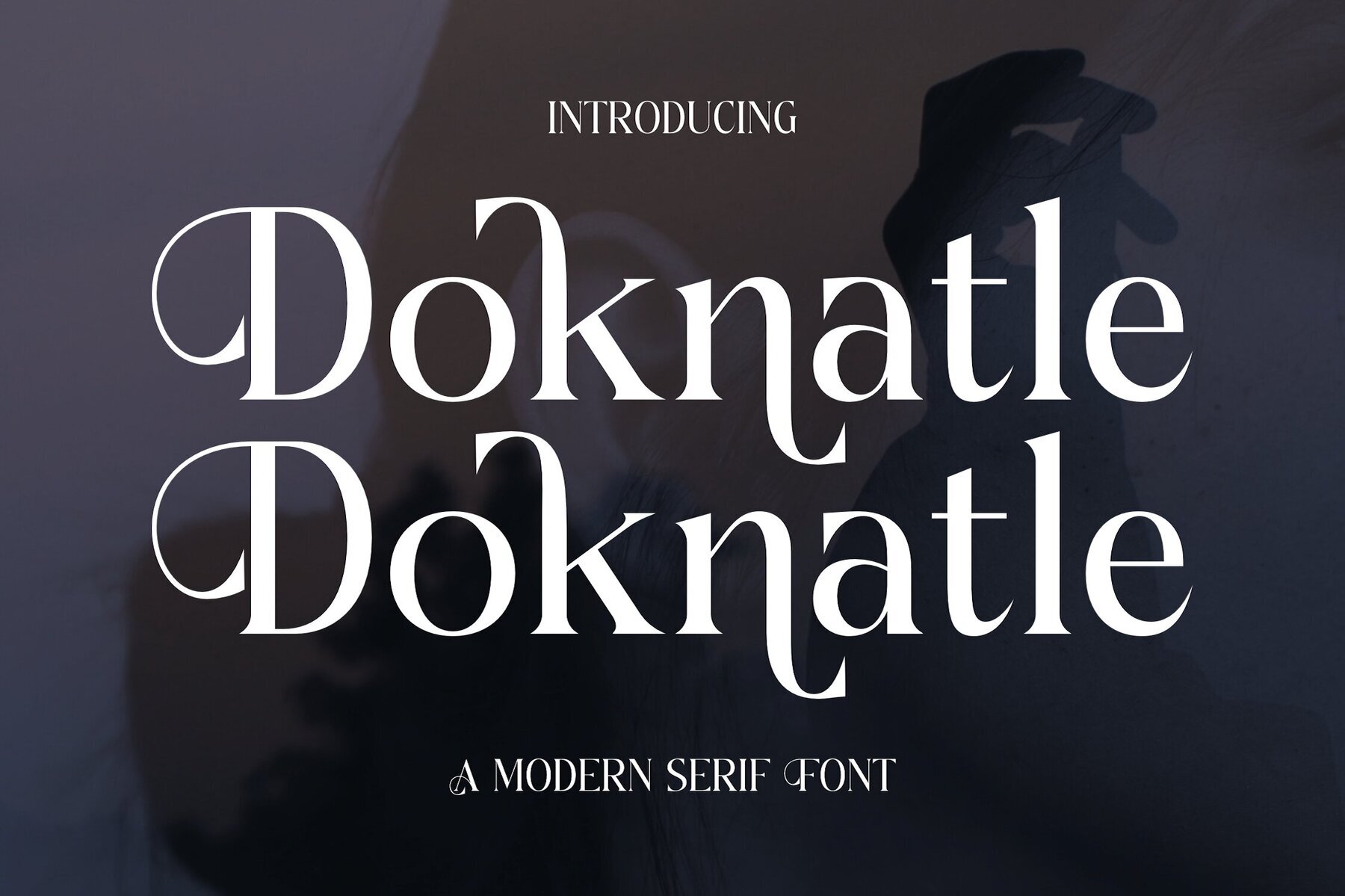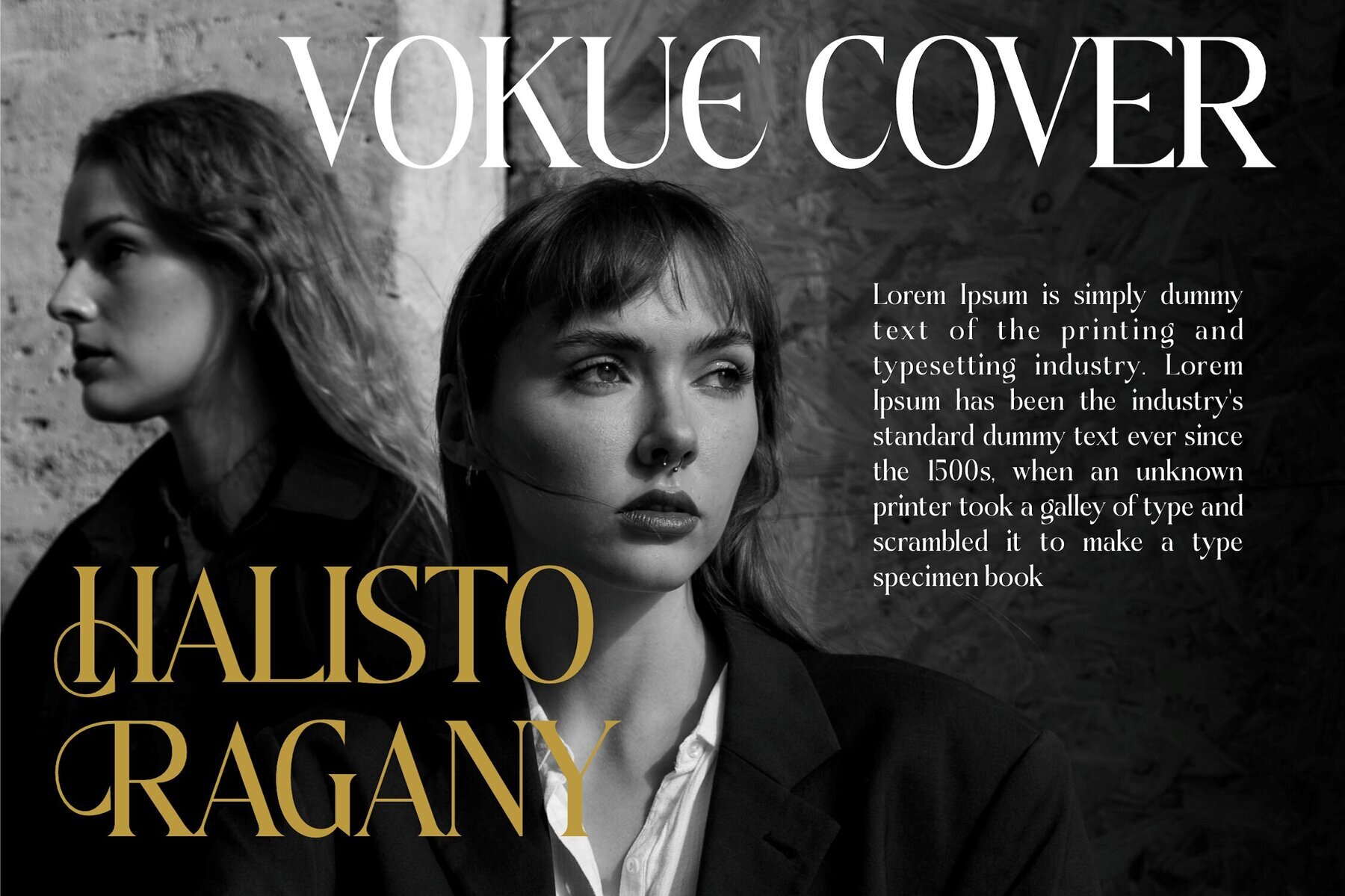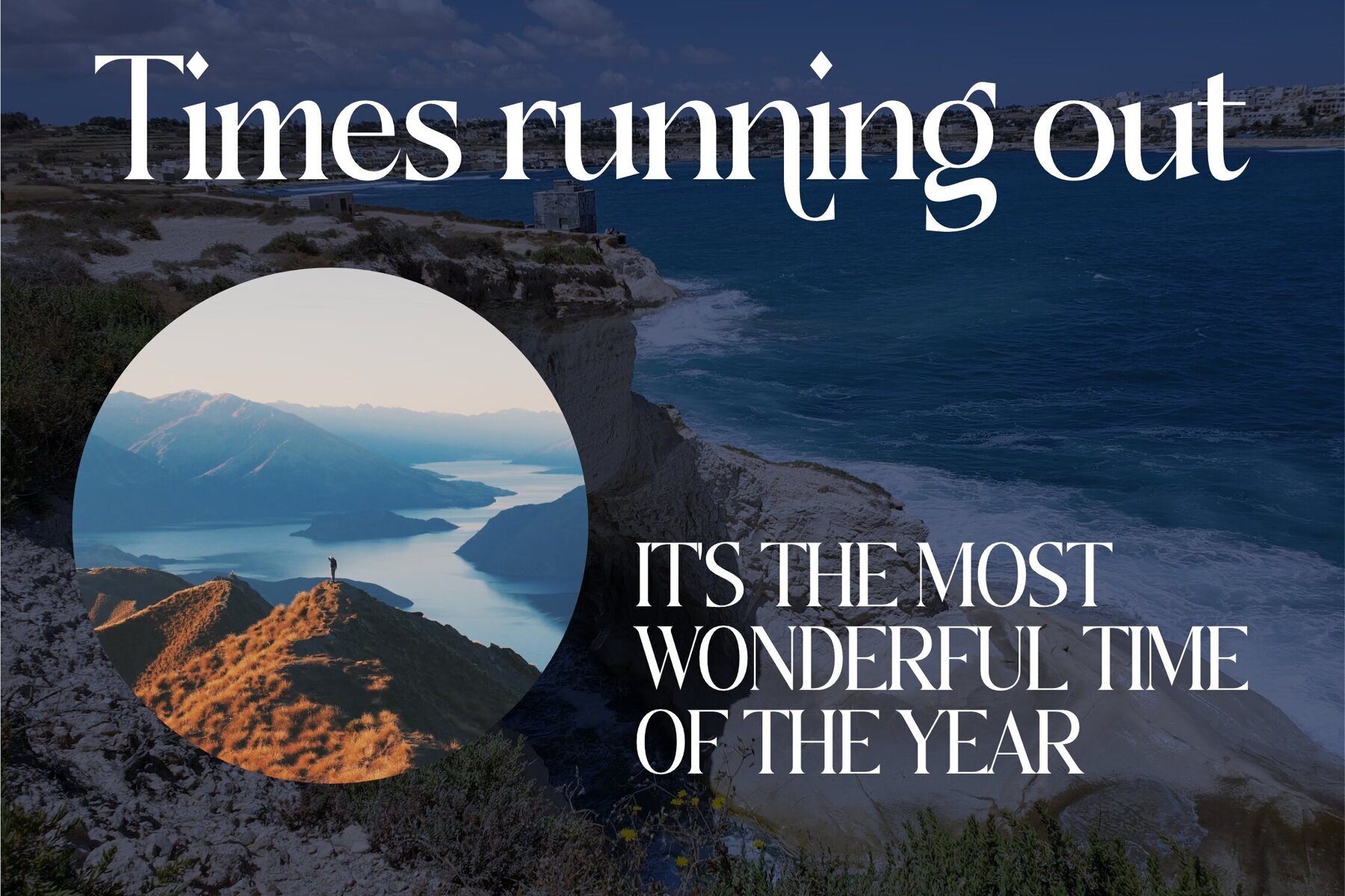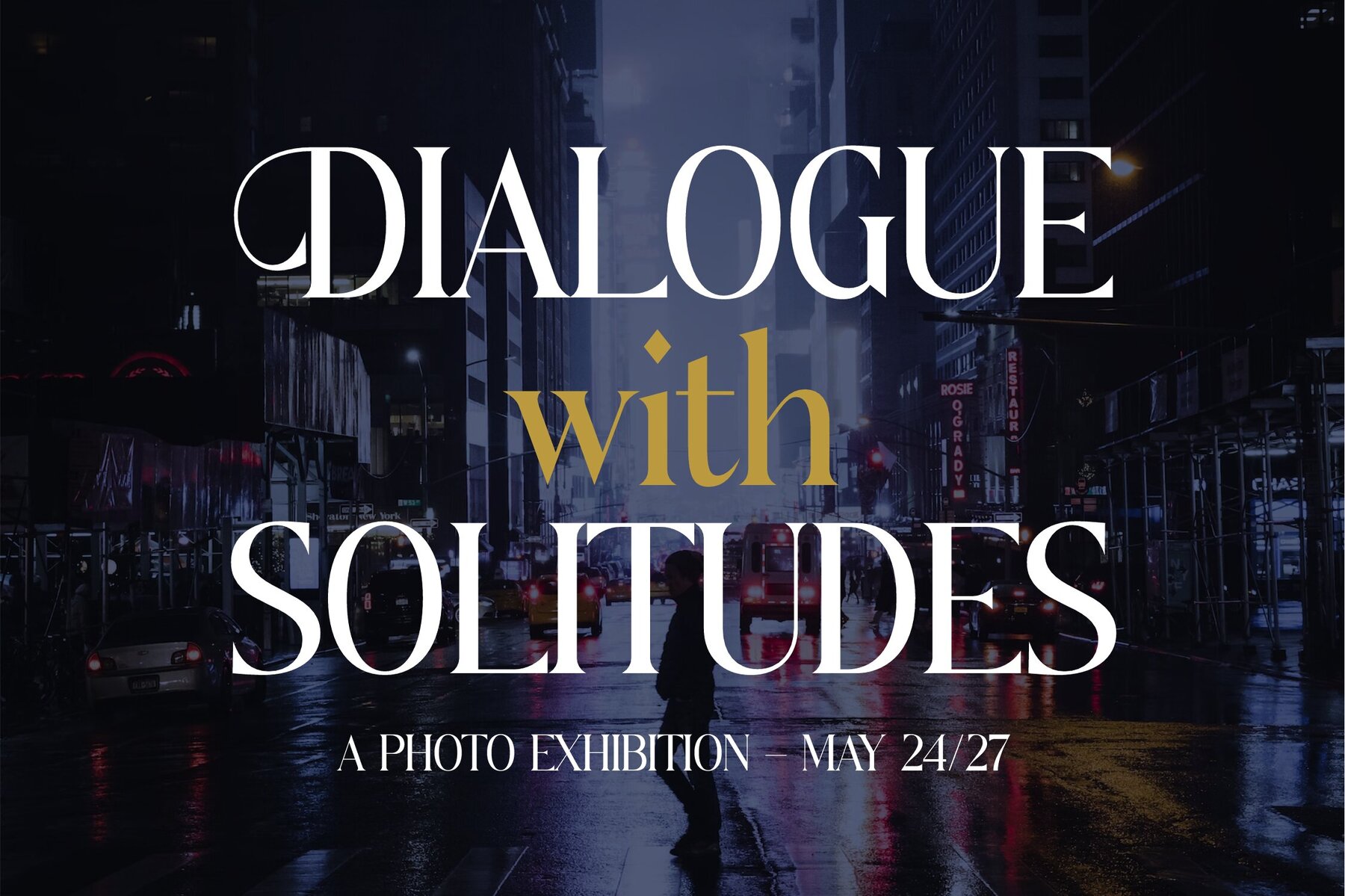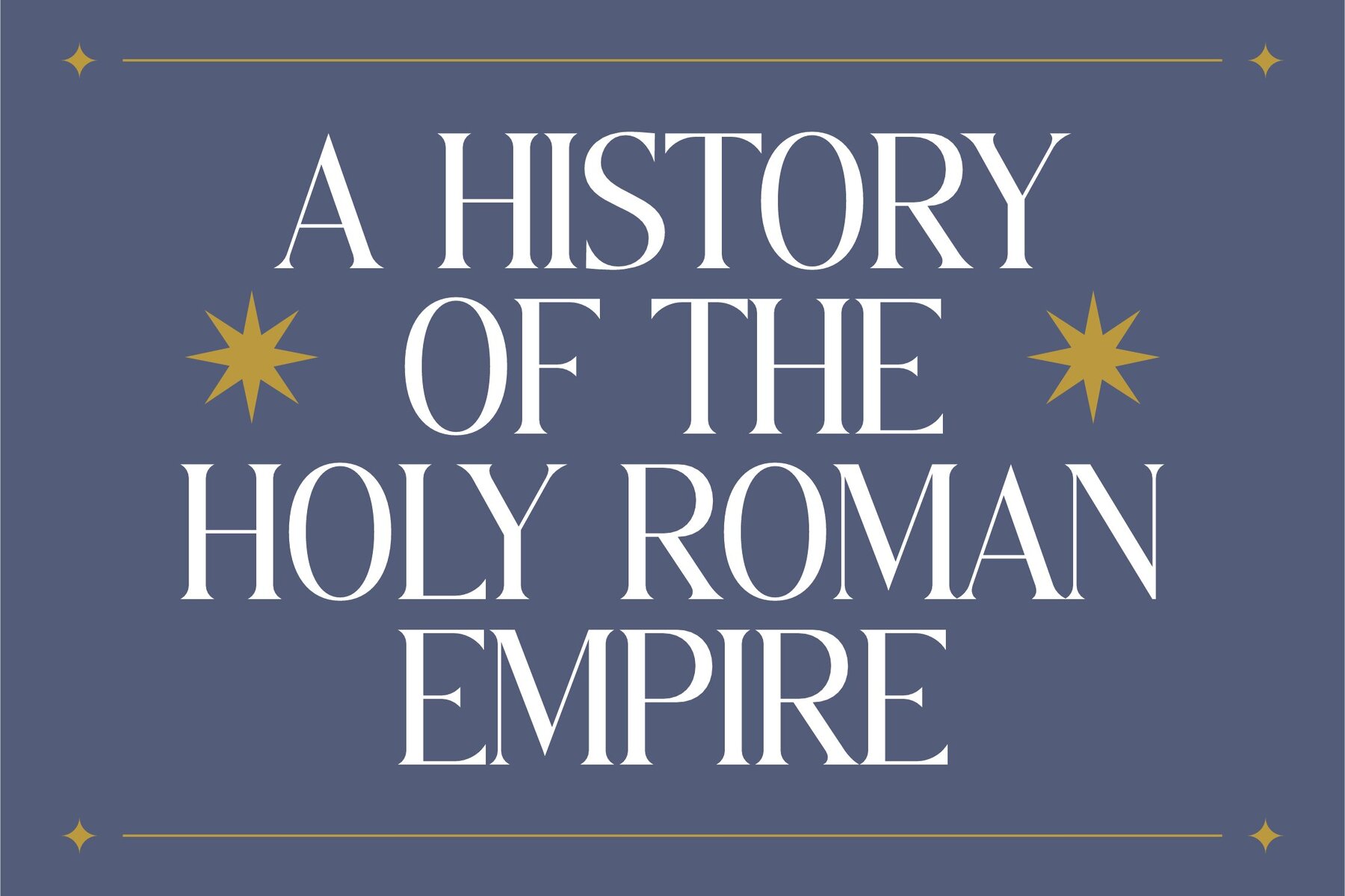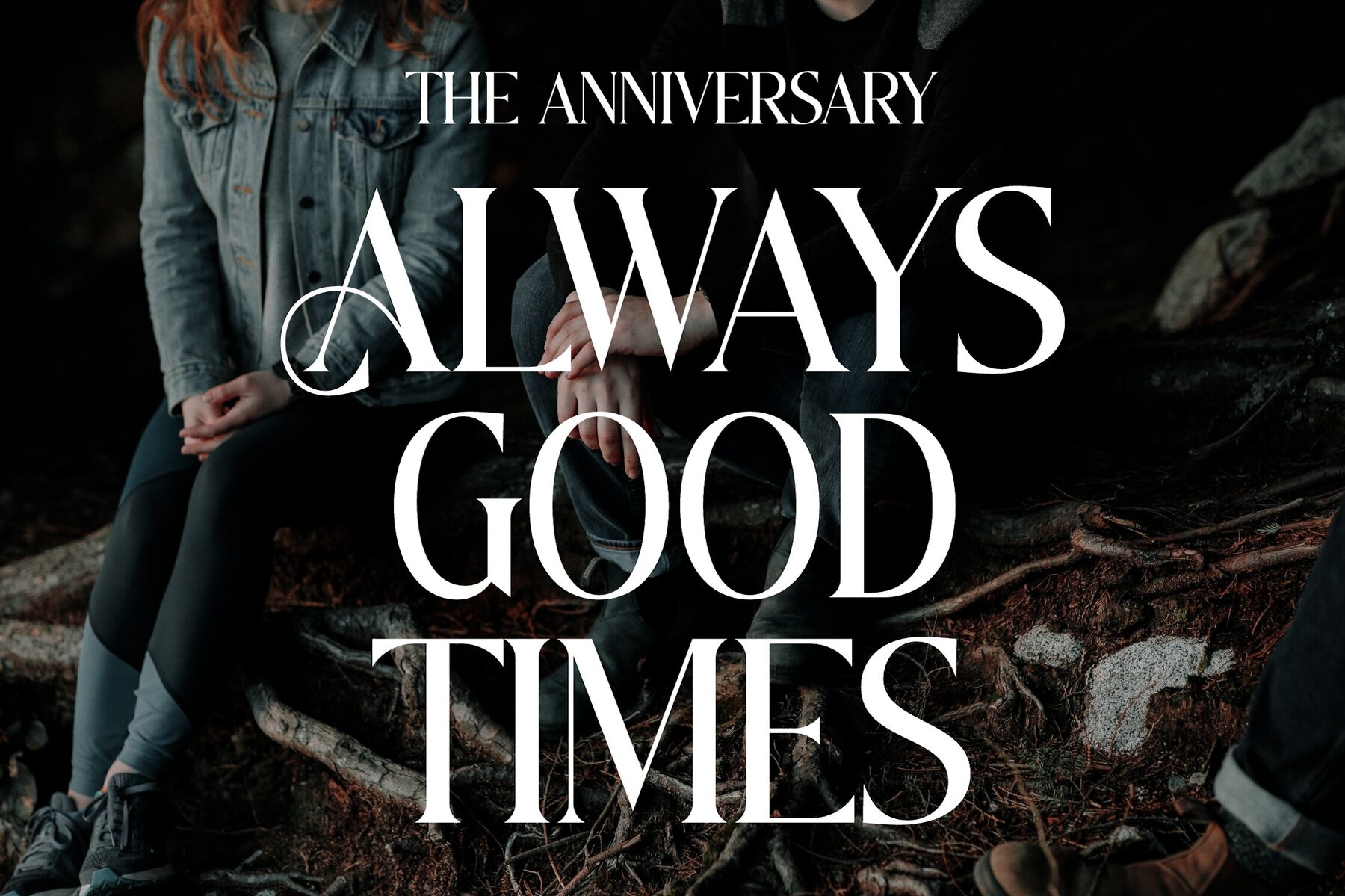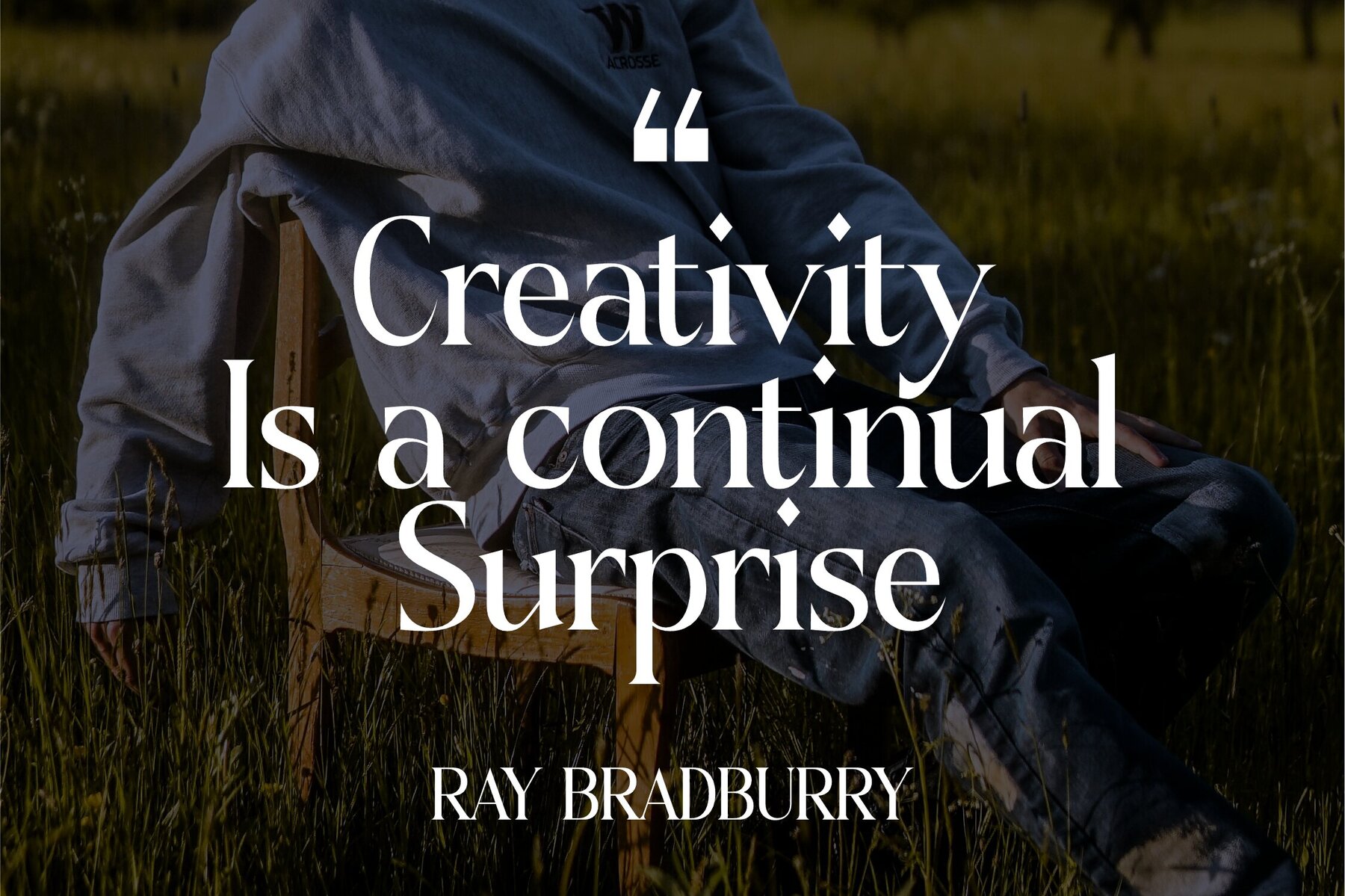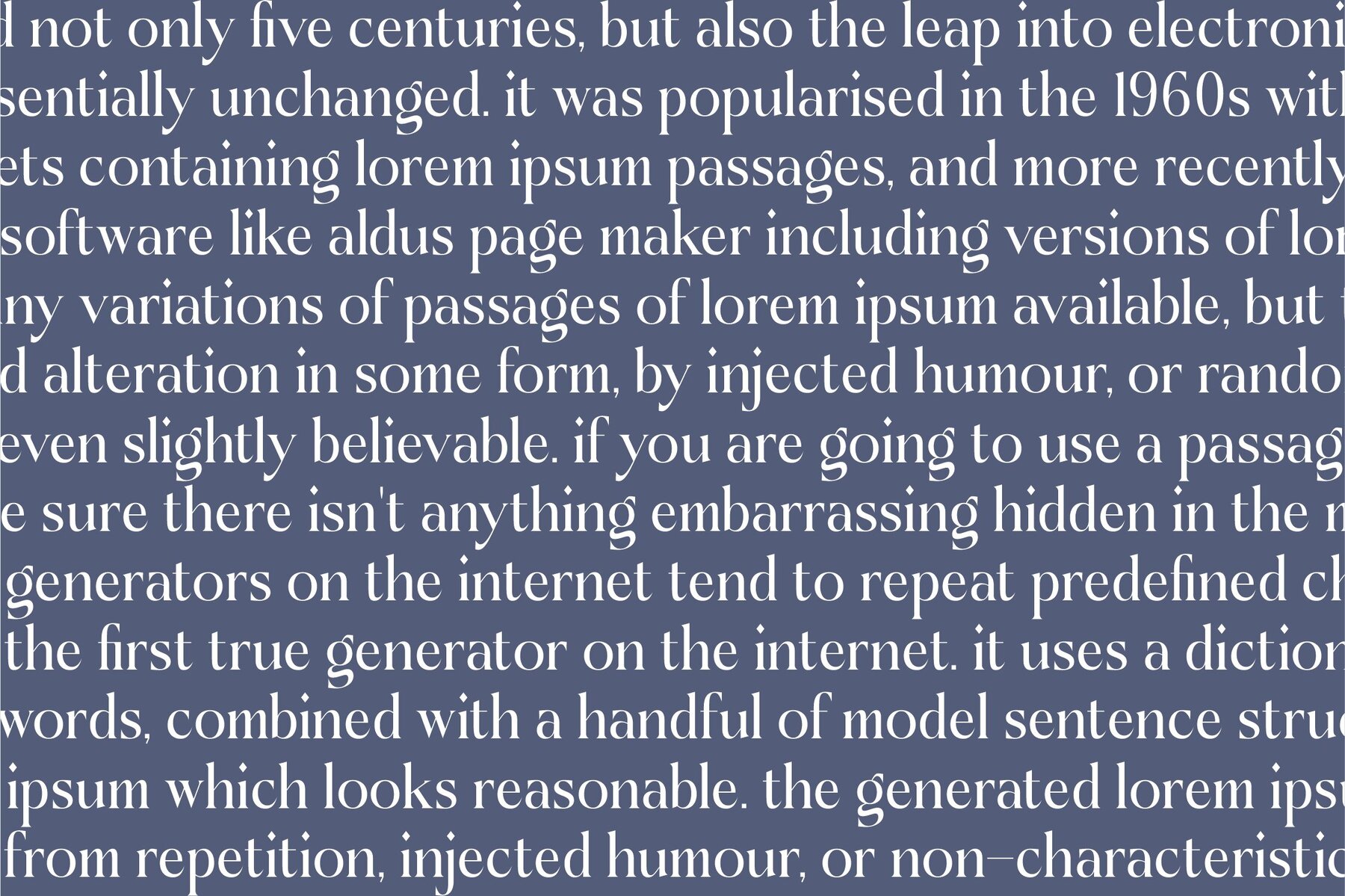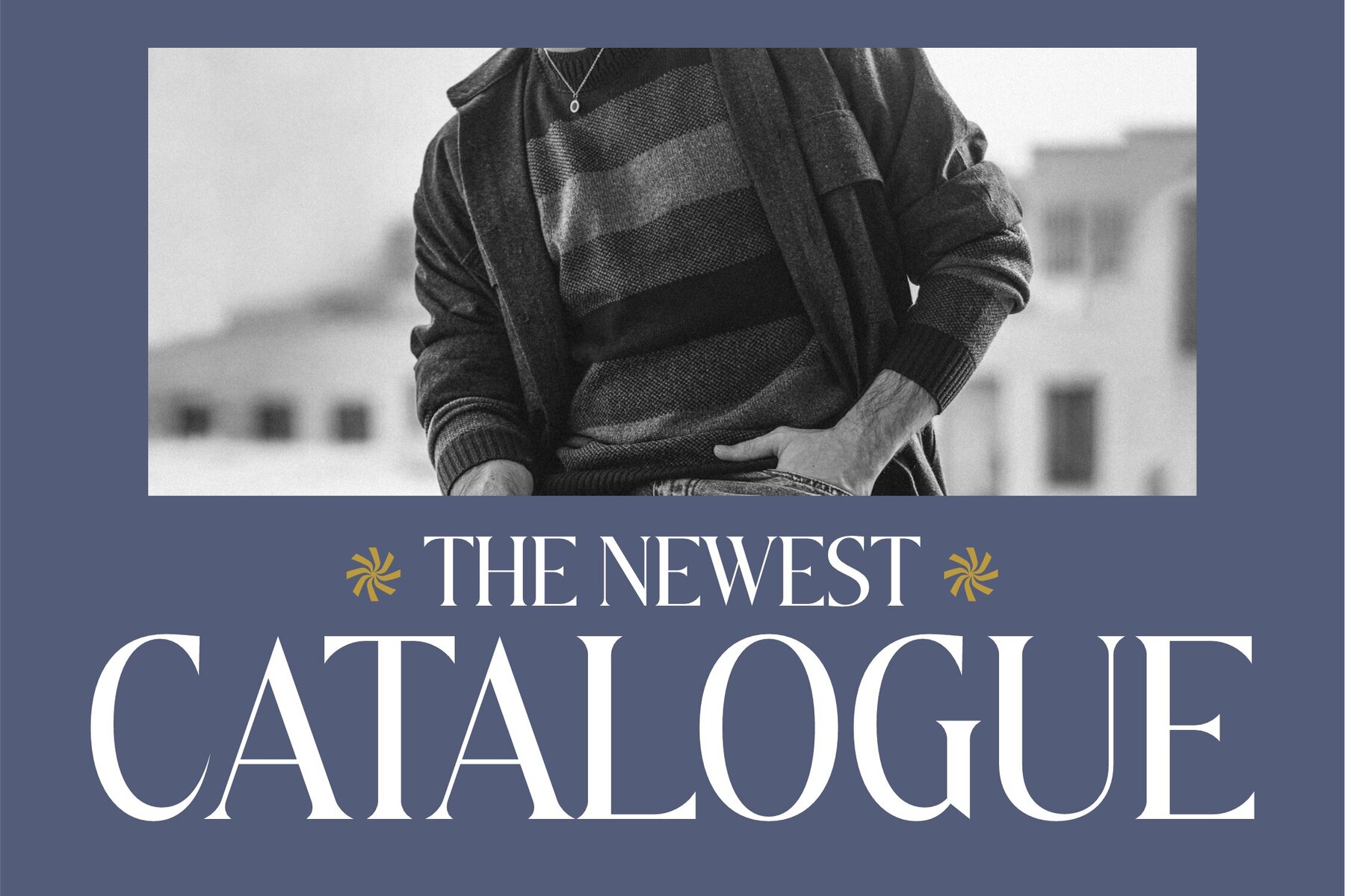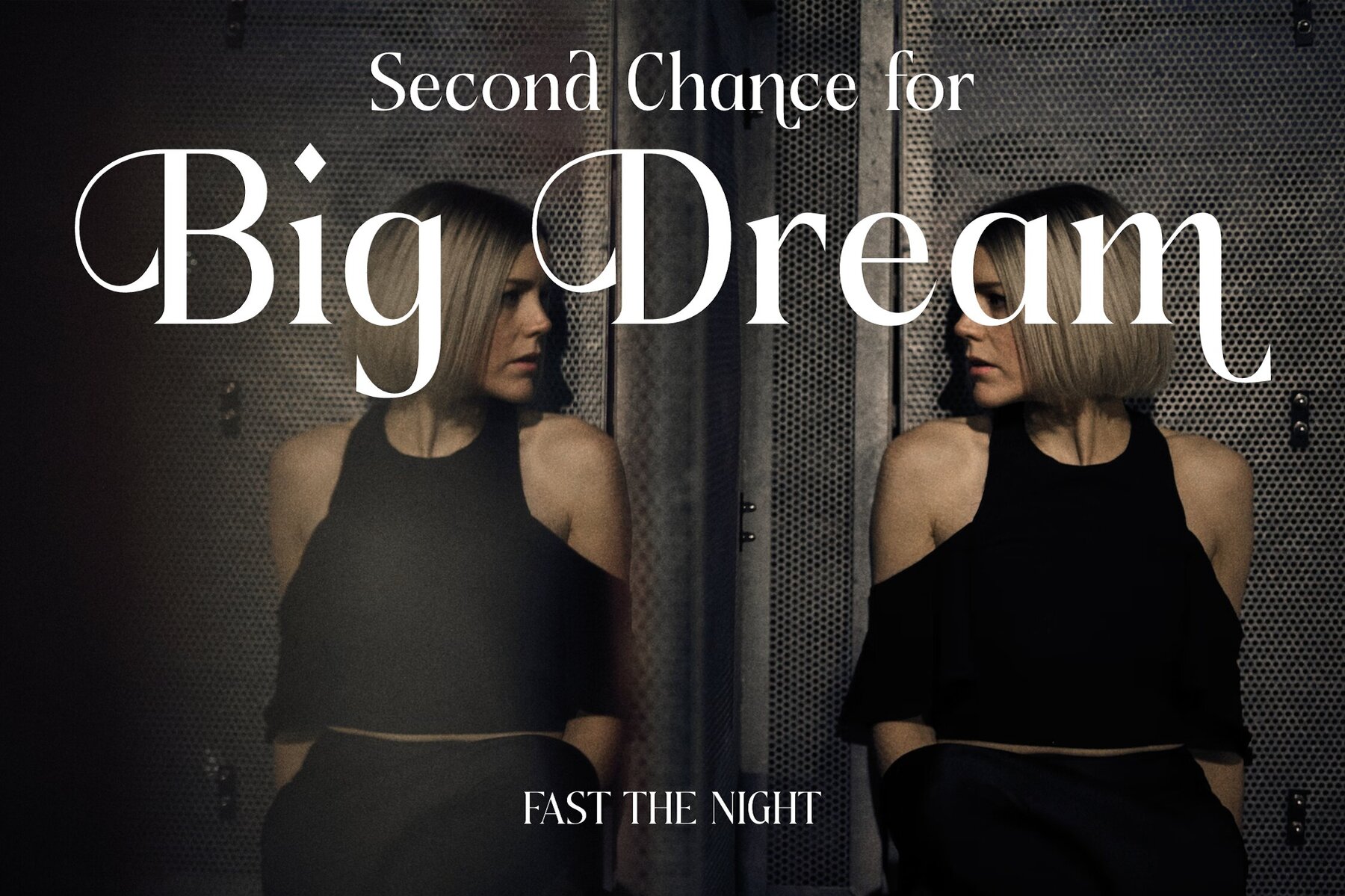
Doknatle Font
Doknatle Regular
Doknatle Italic
Immerse yourself in the elegance of Doknatle Typeface, an exquisite creation by Storytype Studio. This serif font blends modern and classic elements, offering a distinct style that sets it apart. Ideal for crafting sophisticated logos, book and movie titles, fashion brands, and more.Doknatle Typeface